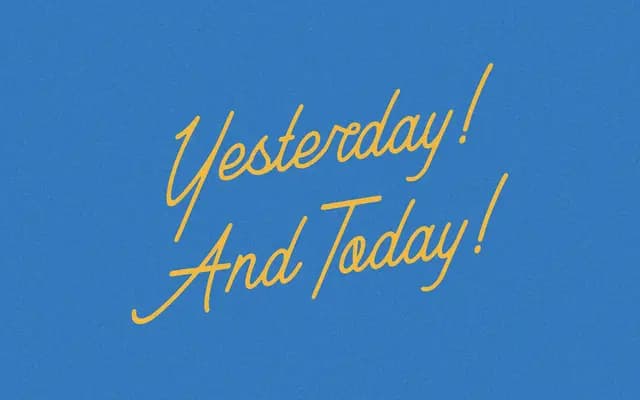
Taxi Driver
A retro-styled casual script with loose letterforms pitched at logos, packaging and menu design that want a handcrafted feel without looking rough.
Described by its designer as the second iteration of the Taxi Driver family, this version adds threaded brows and a warmer character to the original. The single-weight OTF covers basic Latin with a limited set of accented characters, totalling 151 glyphs. At $25 with a broad commercial licence covering logos, packaging, websites and broadcast, it sits squarely in the affordable indie foundry space.
A retro-inspired casual script with loose, connected letterforms designed to read as approachable yet polished, typical of brush-style casual scripts used in branding and packaging.